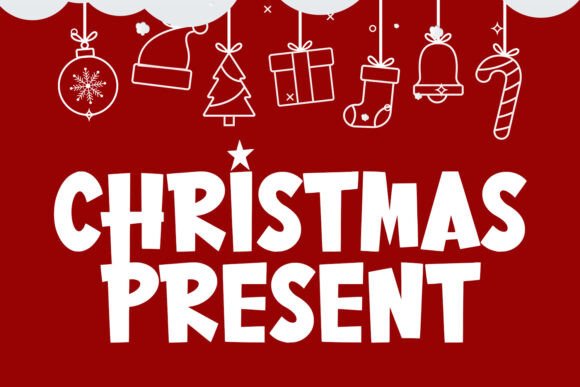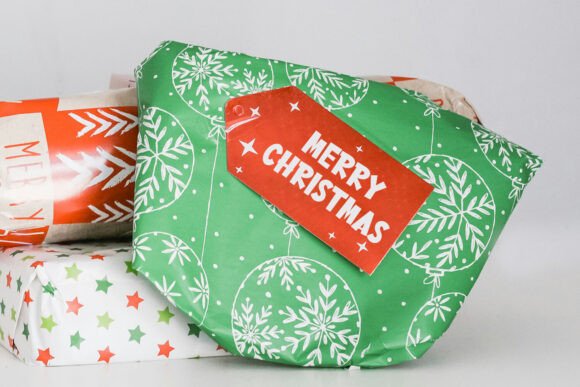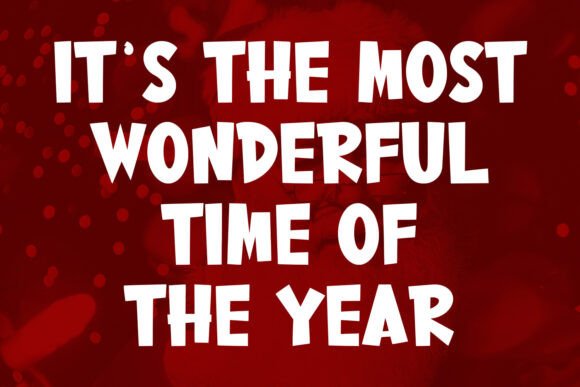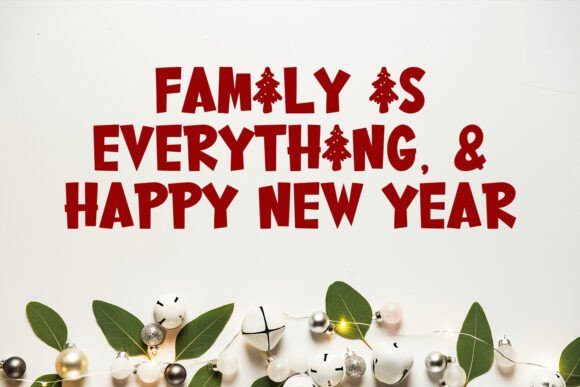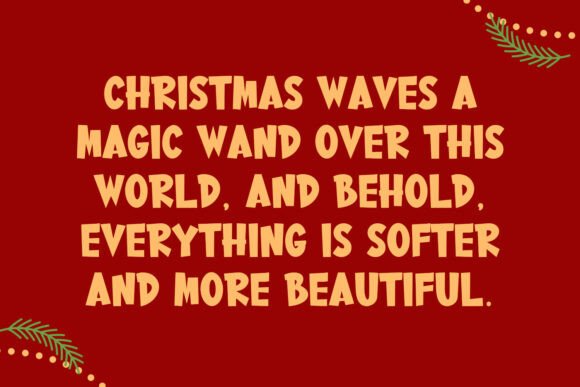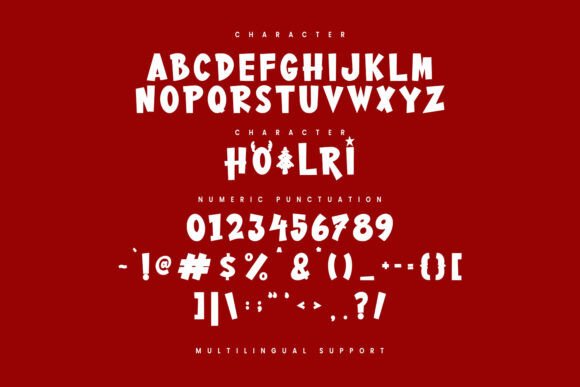
Introducing Fulood Font: The Ultimate Christmas Display Font
Are you looking for a font that captures the essence of Christmas and adds a playful touch to your designs? Look no further than Fulood Font! This fun and festive display font is perfect for creating stunning Christmas designs, from decorations and cards to posters and more. In this article, we’ll dive into the features and benefits of Fulood Font, and explore how it can elevate your holiday projects.
What is Fulood Font?
Fulood Font is a bold, playful display font designed specifically for Christmas designs. Its holiday-inspired style features cheerful letters that are sure to add a warm, festive touch to any project. Whether you’re a designer, crafter, or DIY enthusiast, Fulood Font is the perfect addition to your font collection.
Key Features of Fulood Font
- Bold and Playful Letters: Fulood Font features bold, playful letters that are perfect for creating eye-catching Christmas designs.
- Holiday-Inspired Style: The font’s holiday-inspired style captures the essence of Christmas, making it ideal for decorations, cards, and posters.
- Cheerful Look: Fulood Font’s cheerful look adds a warm, festive touch to any Christmas project, making it perfect for designers and crafters.
Benefits of Using Fulood Font